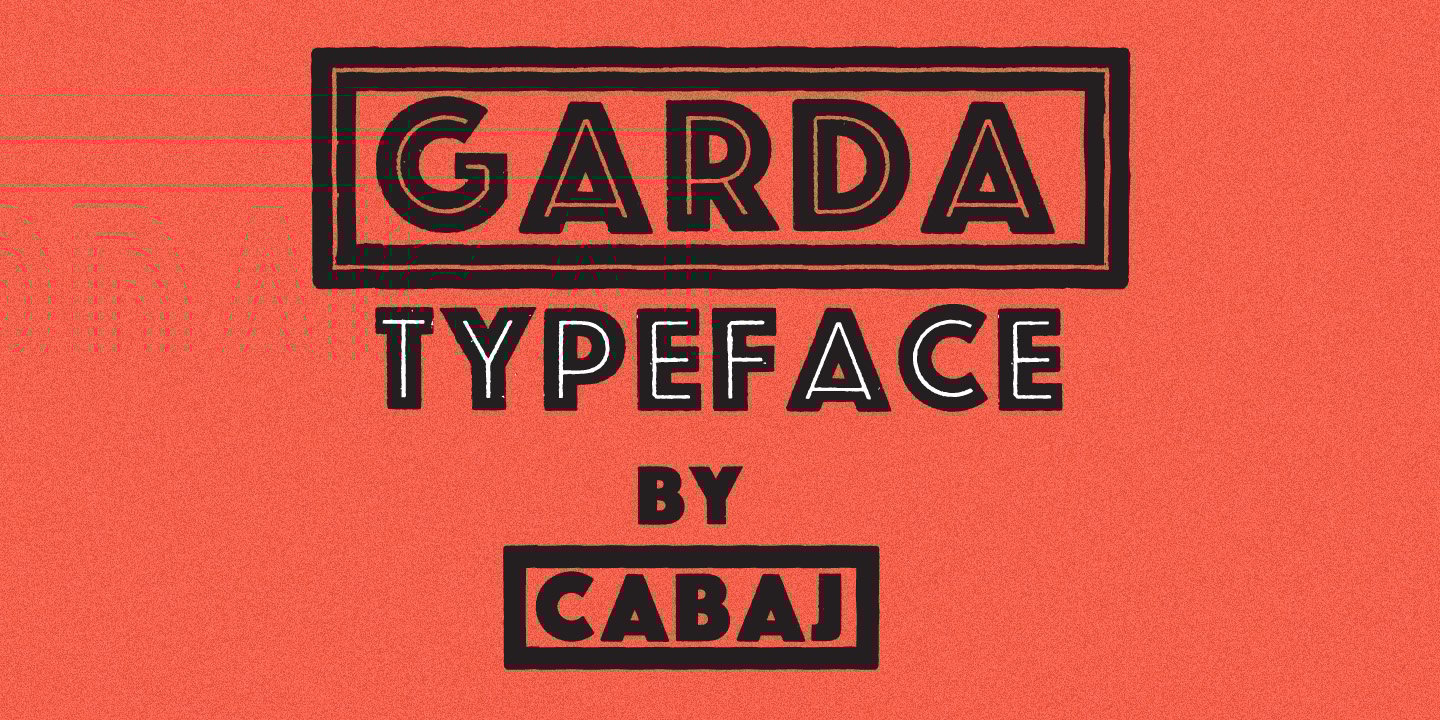
The Garda Font is perfect for security company branding, protective services marketing, law enforcement materials, military communications, corporate security designs, safety signage, industrial applications, and professional defense-related documentation. This versatile typeface excels in security firms, government agencies, military organizations, safety equipment manufacturers, and any business seeking to communicate strength, reliability, and unwavering protection in their visual communications.
What makes Garda Font so exciting is its commanding presence and robust character that immediately conveys authority, trustworthiness, and professional competence. The font features strong, bold letterforms with solid construction, clean lines, and distinctive details that project confidence and reliability. Its powerful design philosophy makes it ideal for organizations that need to communicate security, protection, and dependability while maintaining approachable professionalism that builds client trust.
The Garda Font family includes comprehensive weight options: Light, Regular, Medium, Semi Bold, Bold, Extra Bold, and Black versions, each available in upright and italic styles. Additionally, it offers condensed variants for space-efficient applications, extended character sets with tactical symbols, and specialized glyphs for security and safety documentation. The family includes multilingual support for international security operations.
When you choose Garda Font Free Download, you're investing in a typeface designed to command respect and instill confidence in professional security environments. This font seamlessly combines authoritative presence with excellent readability, making it perfect for both official documentation and public-facing communications. The carefully engineered letterforms ensure optimal legibility in high-stress situations while maintaining the strong visual impact necessary for effective security branding.
Whether you're developing security company marketing materials, creating safety documentation, designing protective equipment branding, or establishing a professional identity for law enforcement agencies, this font delivers the authority and credibility your organization demands. The Garda Font transforms your communications into powerful statements that reassure clients and project the strength and reliability essential for security-focused businesses.
This exceptional typeface represents the perfect balance between authority and accessibility, making it an essential tool for security professionals who understand that clear, confident communication is fundamental to building trust and maintaining safety in our communities and organizations.